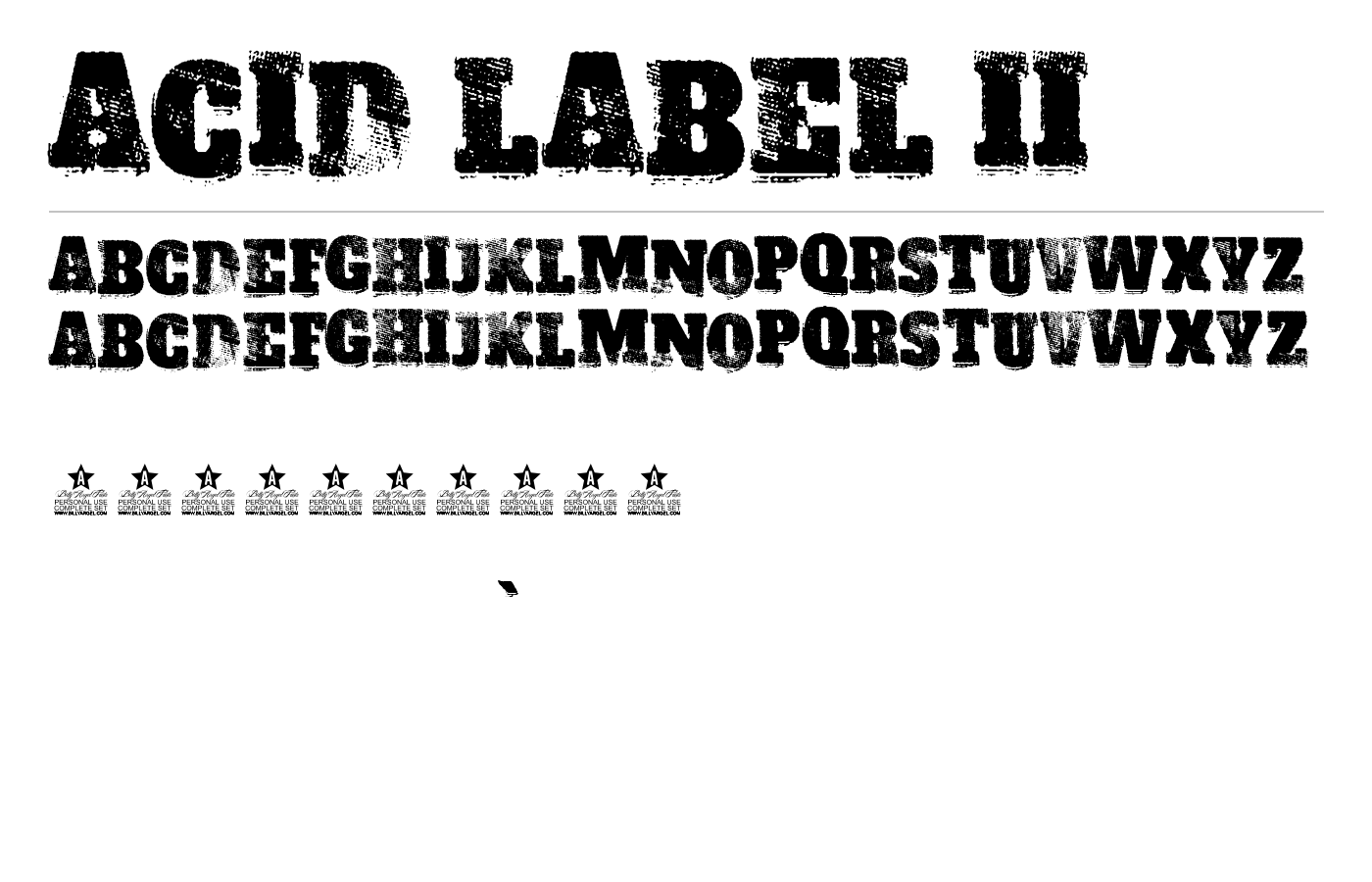
ACID LABEL II is a bold, distressed slab serif font with a strong industrial vibe, featuring thick blocky letters and rough, textured edges that give it a vintage, worn-out look. It works great for designs needing a rugged, gritty feel such as posters, logos, and packaging that want to communicate toughness or a retro aesthetic. This font’s heavy weight and unique weathered style make it eye-catching and perfect for headlines and display use where impact and character are key.
ACID LABEL II Font
About ACID LABEL II Font
| Font family | ACID LABEL II Font |